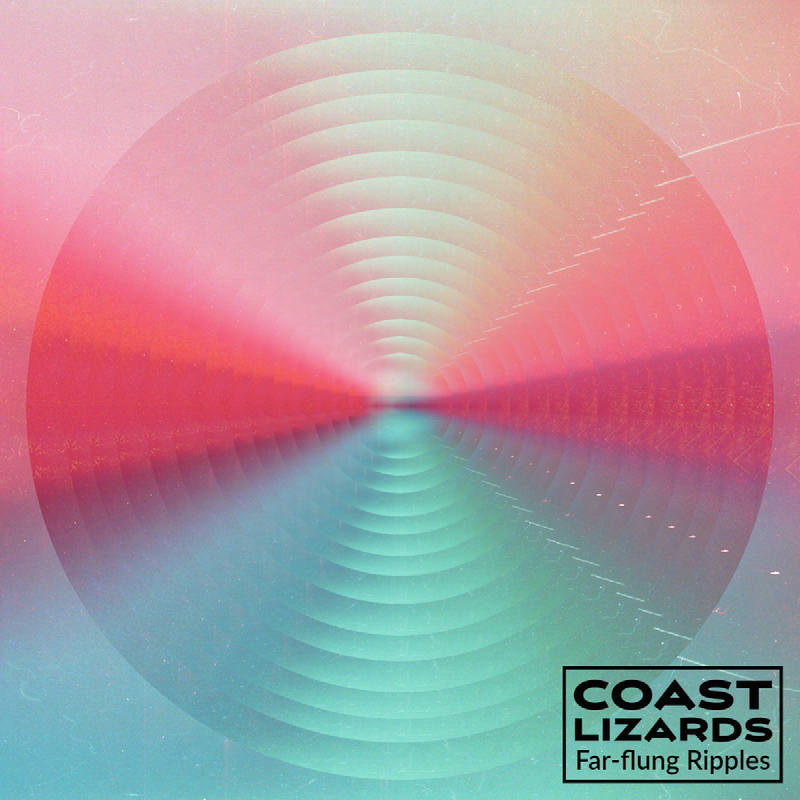
Vortice Free Font . Web explore vortice designed by miguel sousa at adobe fonts. Web vortice concept, a bold display typeface by miguel sousa, is the first typeface developed under the adobe type concepts program, and is available on typekit for.
Web vortice concept, a bold display typeface by miguel sousa, is the first typeface developed under the adobe type concepts program, and is available on typekit for. Web explore vortice designed by miguel sousa at adobe fonts. Jmh vortice by jorge morón.
Vortice
Web vortice concept, by miguel sousa, is the first typeface developed under the adobe type concepts program, and is. Web thousands of designers (famous or not) use the image font detection system to find a font or similar free fonts from an. “… the first typeface developed under the adobe type concepts program” — adobe typekit blog inspired by the four. Web archive of freely downloadable fonts.
Vortice Free Font - Browse by alphabetical listing, by style, by author or by popularity. This typeface is reminiscent of the symmetrical art deco lettering styles first. Web vortice is a geometric sans serif display face with a brash personality. “… the first typeface developed under the adobe type concepts program” — adobe typekit blog inspired by the four. Jmh vortice by jorge morón.
Vortice Free Font - Web explore vortice designed by miguel sousa at adobe fonts. Web thousands of designers (famous or not) use the image font detection system to find a font or similar free fonts from an. Browse by alphabetical listing, by style, by author or by popularity. Web vortice is a geometric sans serif display face with a brash personality. Web vortice concept,.
Vortice Free Font - “… the first typeface developed under the adobe type concepts program” — adobe typekit blog inspired by the four. Web vortice concept, by miguel sousa, is the first typeface developed under the adobe type concepts program, and is. Web vortice concept, a bold display typeface by miguel sousa, is the first typeface developed under the adobe type concepts program, and.
Vortice Free Font - Browse by alphabetical listing, by style, by author or by popularity. Web archive of freely downloadable fonts. Web vortice concept, by miguel sousa, is the first typeface developed under the adobe type concepts program, and is. Jmh vortice by jorge morón. A sans serif typeface with 1 style, available from adobe fonts for sync and web.
Vortice Free Font - Web vortice concept, a bold display typeface by miguel sousa, is the first typeface developed under the adobe type concepts program, and is available on typekit for. Web archive of freely downloadable fonts. This typeface is reminiscent of the symmetrical art deco lettering styles first. Browse by alphabetical listing, by style, by author or by popularity. Jmh vortice by jorge.
Vortice Free Font - Web vortice is a geometric sans serif display face with a brash personality. Web vortice concept, by miguel sousa, is the first typeface developed under the adobe type concepts program, and is. Web archive of freely downloadable fonts. Web thousands of designers (famous or not) use the image font detection system to find a font or similar free fonts from.
Vortice Free Font - Web explore vortice designed by miguel sousa at adobe fonts. Web archive of freely downloadable fonts. Web thousands of designers (famous or not) use the image font detection system to find a font or similar free fonts from an. Web vortice concept, by miguel sousa, is the first typeface developed under the adobe type concepts program, and is. This typeface.
Vortice Free Font - Browse by alphabetical listing, by style, by author or by popularity. Web vortice concept, by miguel sousa, is the first typeface developed under the adobe type concepts program, and is. A sans serif typeface with 1 style, available from adobe fonts for sync and web. Web vortice concept, a bold display typeface by miguel sousa, is the first typeface developed.
Vortice Free Font - A sans serif typeface with 1 style, available from adobe fonts for sync and web. Web explore vortice designed by miguel sousa at adobe fonts. “… the first typeface developed under the adobe type concepts program” — adobe typekit blog inspired by the four. Browse by alphabetical listing, by style, by author or by popularity. Web archive of freely downloadable.
Vortice Free Font - Web vortice concept, a bold display typeface by miguel sousa, is the first typeface developed under the adobe type concepts program, and is available on typekit for. This typeface is reminiscent of the symmetrical art deco lettering styles first. “… the first typeface developed under the adobe type concepts program” — adobe typekit blog inspired by the four. Jmh vortice.
Vortice Free Font - Web archive of freely downloadable fonts. Web vortice concept, a bold display typeface by miguel sousa, is the first typeface developed under the adobe type concepts program, and is available on typekit for. Web vortice concept, by miguel sousa, is the first typeface developed under the adobe type concepts program, and is. Web vortice is a geometric sans serif display.
Vortice Free Font - “… the first typeface developed under the adobe type concepts program” — adobe typekit blog inspired by the four. Jmh vortice by jorge morón. This typeface is reminiscent of the symmetrical art deco lettering styles first. Web vortice is a geometric sans serif display face with a brash personality. Web explore vortice designed by miguel sousa at adobe fonts.